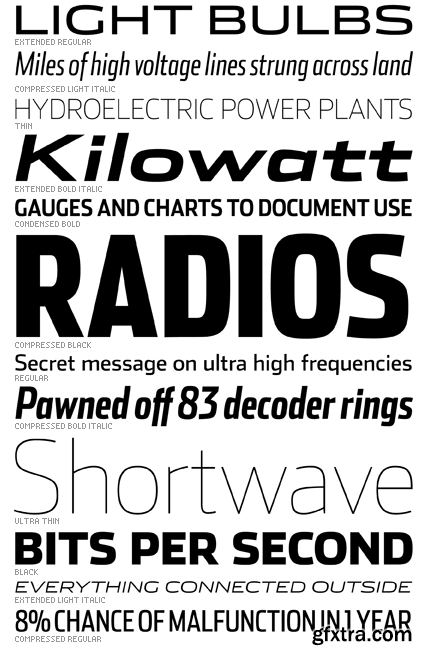
One day in his sketchbook Cyrus Highsmith began hacking the serifs off his Dispatch characters, and liked this rough start.
Like any good sans, Stainless depends upon much more than amputation. Lower contrast ratios, completely rethought spacing, and shapes reworked to occupy missing serif space led to a sanserif partner for Dispatch, and an interesting sanserif series on its own feet.
Among other uses, Stainless is recommended for Newspaper, Magazine, Book and Corporate use.